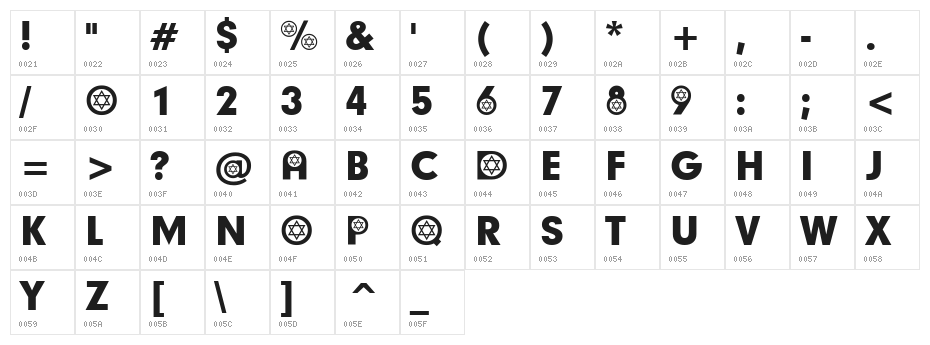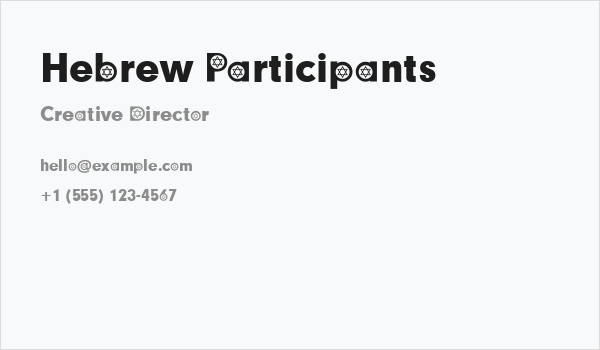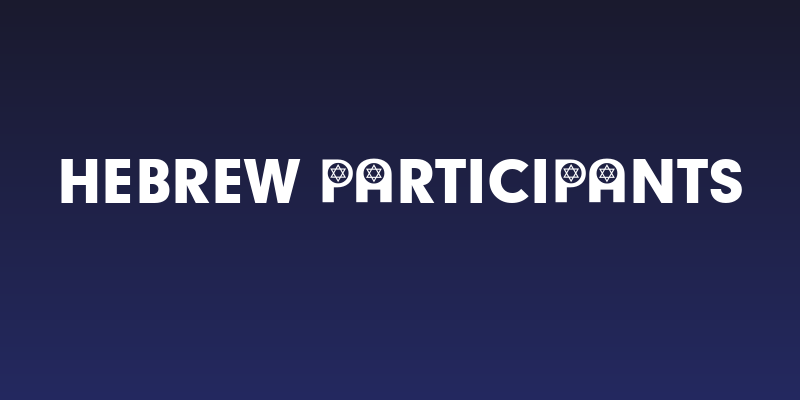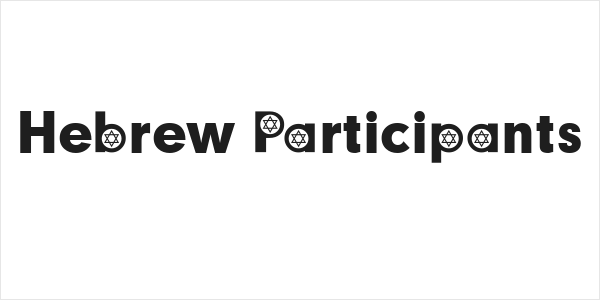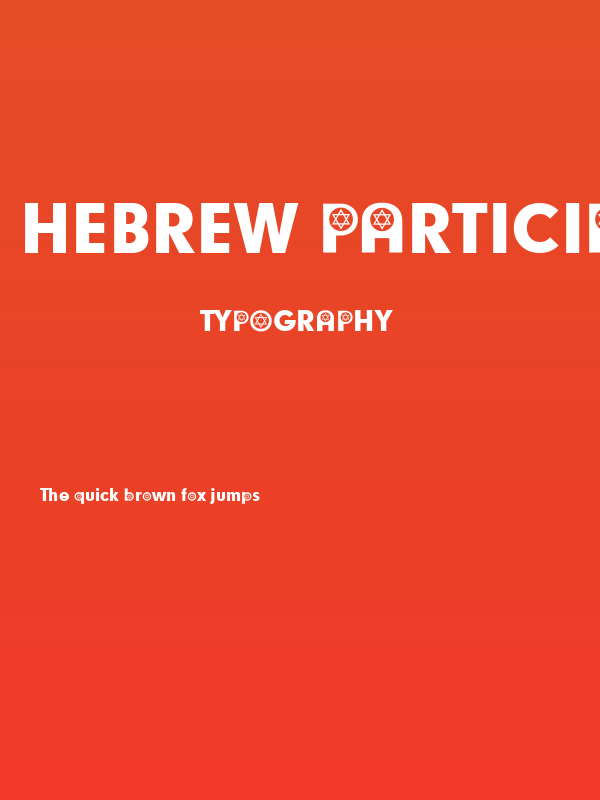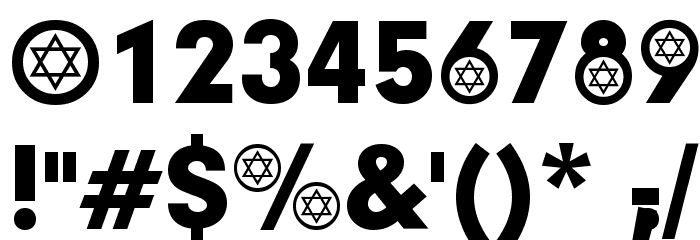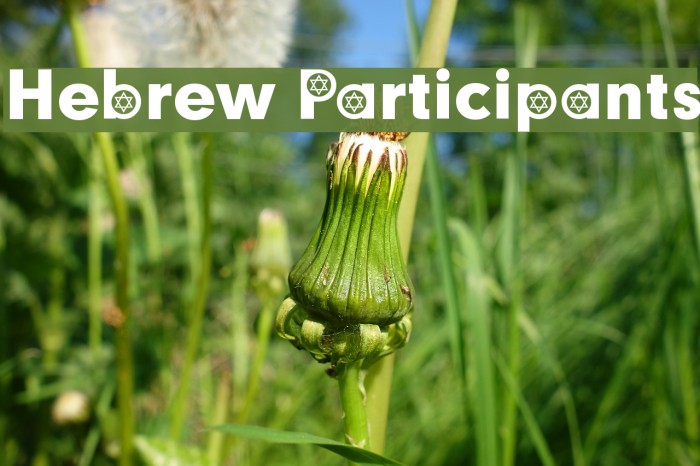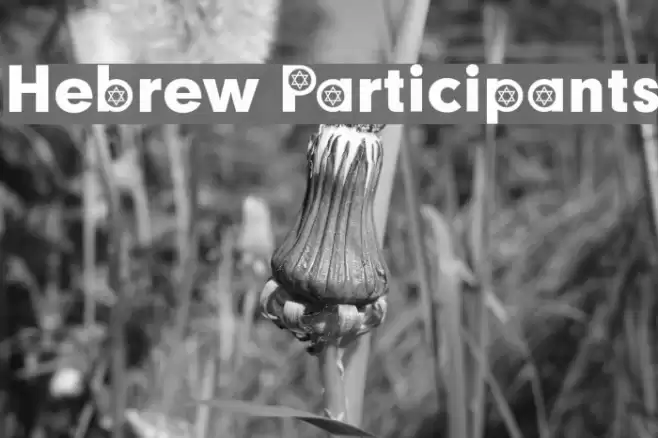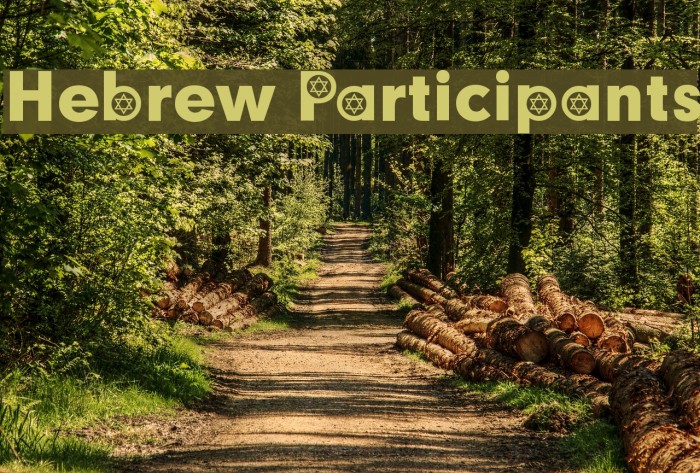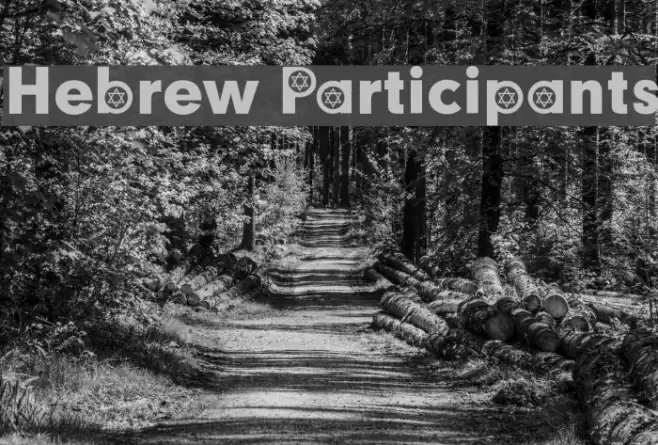
Hebrew Participants Font
| Caso de uso | Logos, Headlines, Posters |
| Proyectos propuestos | Ideal for cultural events, themed posters, branding for Jewish organizations, or any project that seeks to incorporate a cultural symbol in its design. |